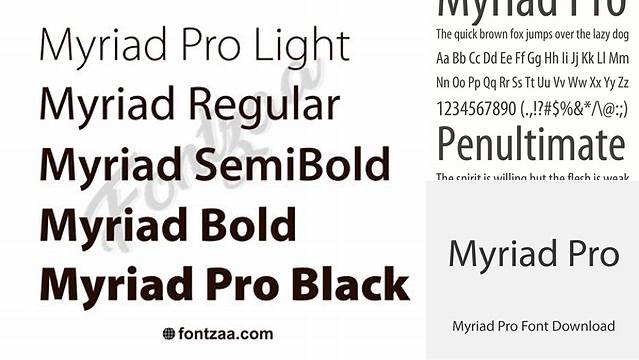
Hey guys! Looking for a fantastic font that's both versatile and visually appealing? Well, you've come to the right place! Today, we're diving deep into the world of Myriad Pro Normal, a typeface that's a real workhorse, and the best part? You can snag a free download! This article is your ultimate guide to everything Myriad Pro Normal, from its history and characteristics to how you can get your hands on it without spending a dime. So, buckle up, and let's get started on this font-tastic adventure! We'll explore its features, uses, and, of course, how to get your free Myriad Pro Normal font download. Let's begin our journey into the world of typography, making sure you're well-equipped to elevate your design projects with this classic font. This is going to be fun, and I'm excited to take you all through this journey.
Myriad Pro Normal: A Deep Dive into the Classic Font
Myriad Pro Normal is more than just a font; it's a design staple. Designed by Robert Slimbach and Carol Twombly, this typeface has a rich history and a reputation for being incredibly versatile. It's part of the larger Myriad Pro family, which includes various weights and styles, but the Normal variant is the go-to choice for many designers. Its clean, sans-serif design makes it incredibly readable, whether it's used in print or on a screen. The font's neutral appearance ensures that it complements a wide range of design styles, from corporate branding to creative projects. The characteristics of Myriad Pro Normal make it a favorite among designers. The well-defined letterforms and generous spacing contribute to its clarity, while its subtle elegance allows it to blend seamlessly into various design contexts. This makes it an ideal choice for everything from body text to headlines. Its design simplicity and readability make it a perfect choice for different projects. The design of Myriad Pro Normal showcases how a well-crafted font can enhance the overall visual experience. The balance and harmony in the letterforms provide a sense of visual comfort, making it easy for readers to immerse themselves in the content. This makes it an essential tool for designers who want to effectively communicate their messages. It's a font that works for everyone. Its timeless appeal ensures that it remains a relevant choice in the ever-evolving world of design.
The History and Origin of Myriad Pro Normal
The Myriad Pro family was designed in the late 1990s, making it a relatively young font compared to some of the classic typefaces that have been around for centuries. The collaboration between Robert Slimbach and Carol Twombly brought together two of the most skilled type designers of their time, resulting in a font that's both technically sound and aesthetically pleasing. Slimbach, known for his expertise in designing classic typefaces like Adobe Garamond, and Twombly, famous for her work on Trajan, brought their respective strengths to the project. The goal was to create a versatile font that could be used across a wide range of applications, from branding to editorial design. The result was Myriad Pro, a font that quickly gained popularity and has since become a standard in the design industry. The original design was intended to be modern and functional. The designers focused on creating a font that was easy to read at any size and suitable for both print and digital media. Myriad Pro Normal, in particular, embodies these core values, providing a balance between readability and aesthetic appeal. This font quickly gained recognition for its versatility, making it a favorite among designers globally. The history of Myriad Pro Normal is a testament to its enduring appeal and relevance in the dynamic world of typography.
Key Characteristics of the Myriad Pro Normal Font
Myriad Pro Normal boasts several key characteristics that make it a standout typeface. First and foremost, its readability is exceptional. The clear and well-defined letterforms ensure that text is easily legible, even at smaller sizes. This is crucial for body text and any design where clarity is paramount. Secondly, the font offers a neutral appearance. This means that it doesn't have a strong personality that might clash with other design elements. Instead, it provides a clean and professional look that allows the content to take center stage. This makes it a versatile choice for various design projects. Another key characteristic is its extensive character set. Myriad Pro Normal supports a wide range of characters, including various accents and special symbols, making it suitable for multilingual projects. This is an advantage for designers who work on global projects. Finally, its geometric design contributes to its modern and clean appearance. The letterforms are based on simple geometric shapes, giving the font a contemporary feel that works well in both print and digital formats. These characteristics combined make Myriad Pro Normal a reliable and stylish choice for designers looking for a font that is both functional and aesthetically pleasing. The balance in its design ensures that it remains a relevant choice in the ever-evolving world of typography. It's a font with a lot of character, while also being very readable.